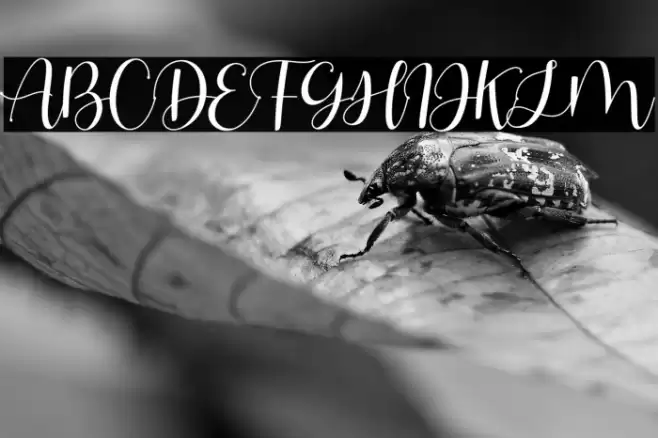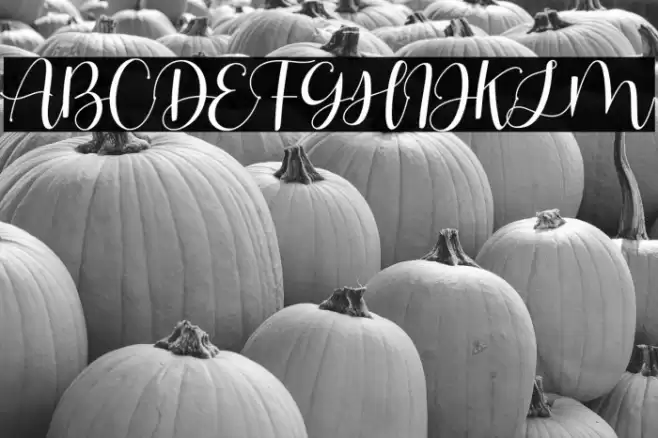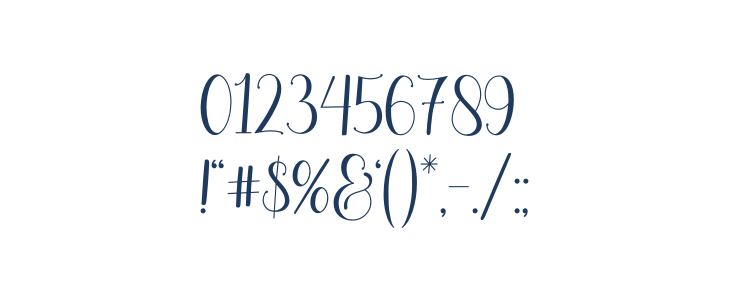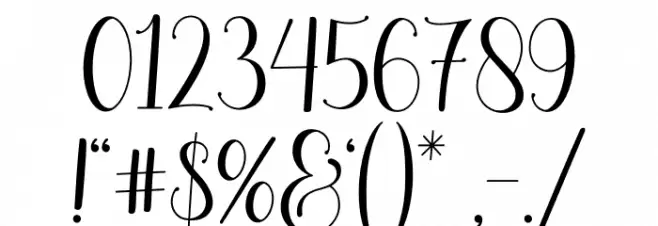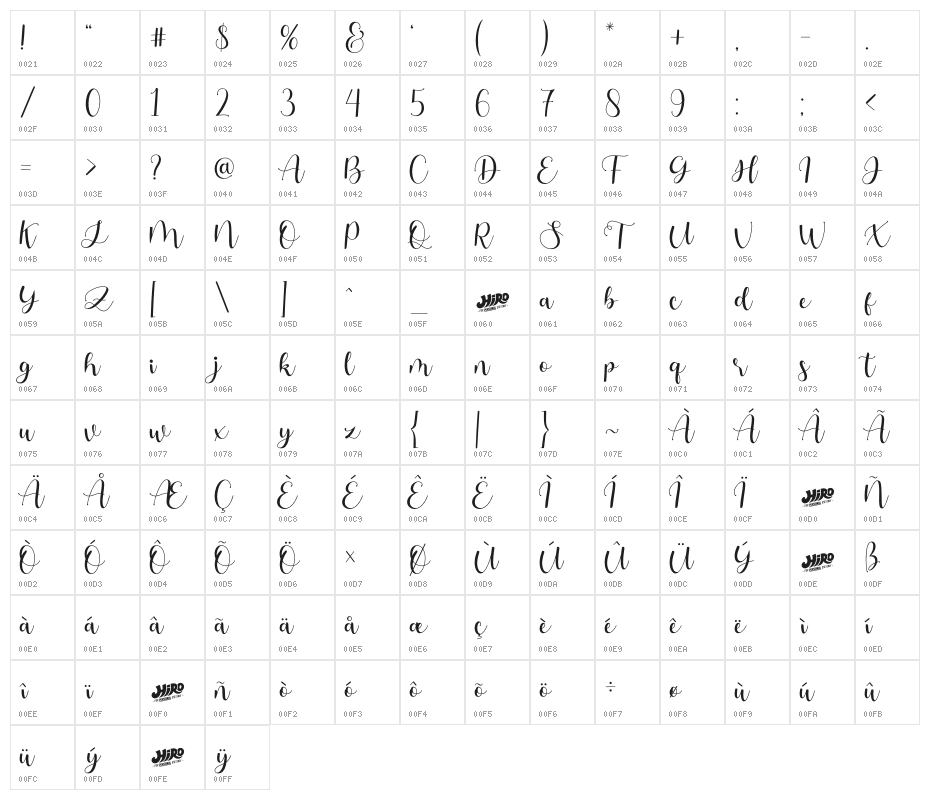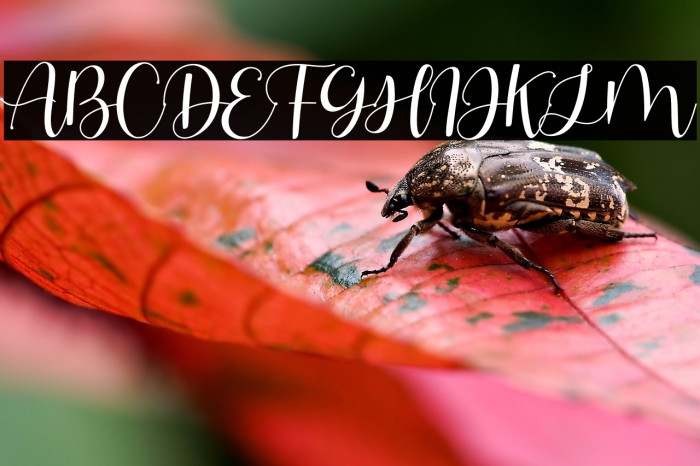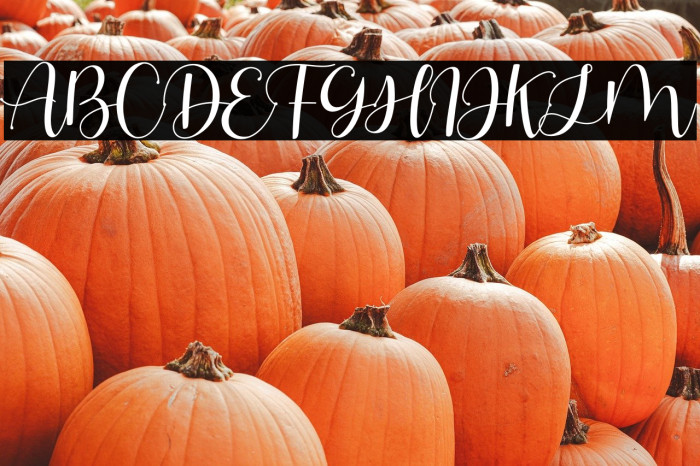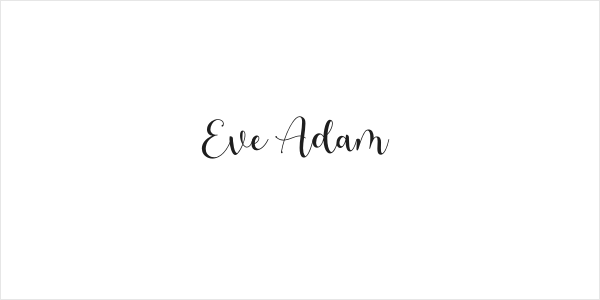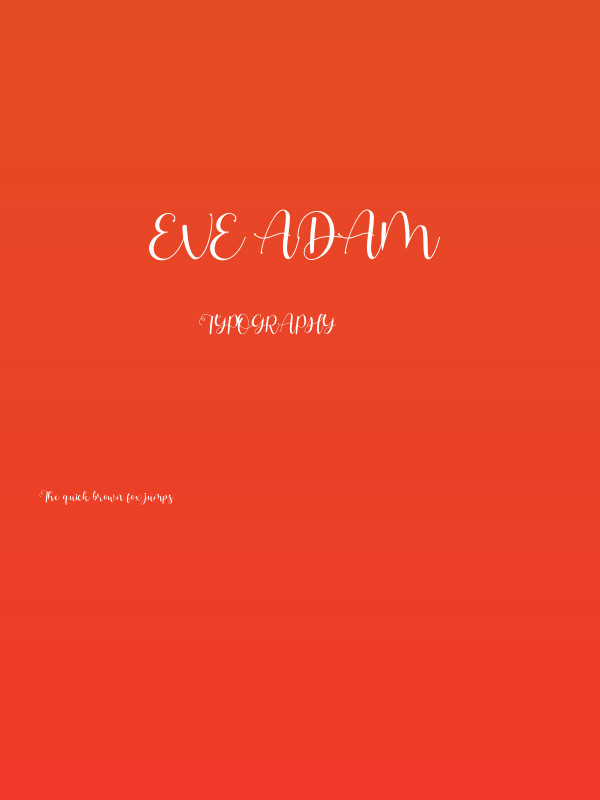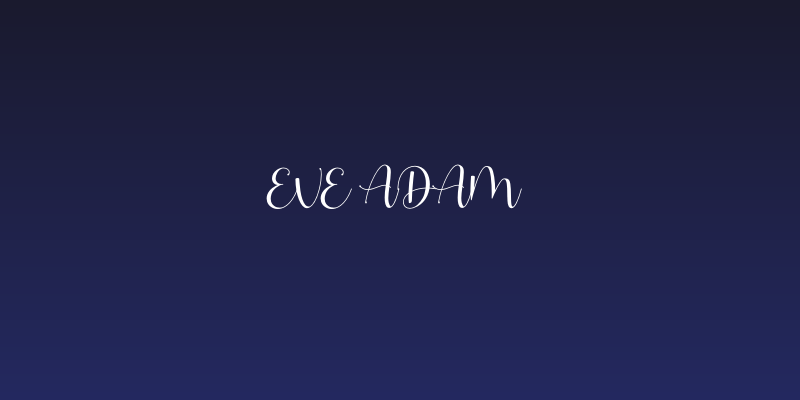
Eve Adam Font
Eve Adam Description
This font features an elegant, flowing script style with a modern twist. The uppercase letters are characterized by their sweeping curves and loops, giving them a sense of movement and fluidity. The lowercase letters maintain a consistent style, with a slightly more restrained design that complements the uppercase. The numerals are stylish and maintain the same flowing aesthetic, making them suitable for decorative purposes. Special characters are thoughtfully designed to match the overall style, ensuring a cohesive look. The font's overall appearance is both sophisticated and approachable, making it ideal for a variety of creative projects.
A modern, elegant script font with flowing curves and loops from Uncategorized fonts.
- Font: Eve Adam
- Proposed Projects: Wedding invitations, branding, greeting cards, and elegant packaging.
- Use Case: Logos, Invitations, Decorative text